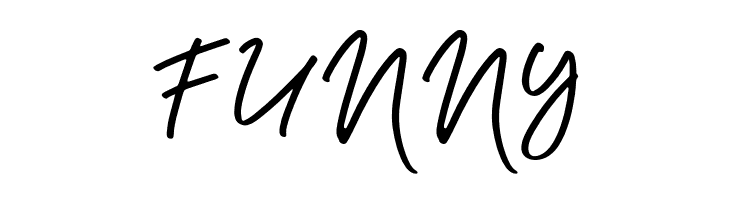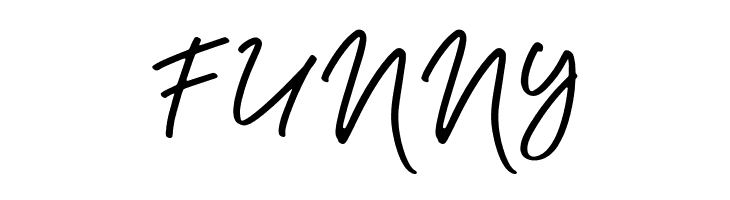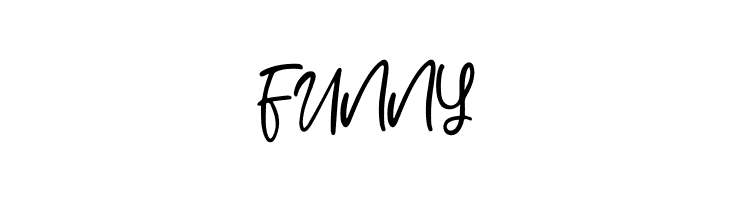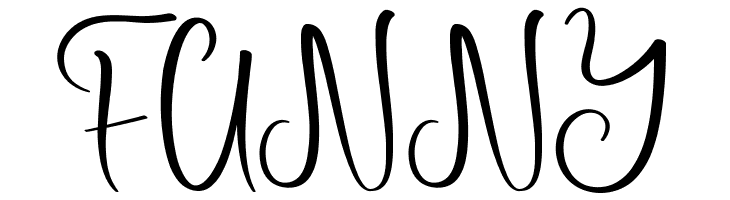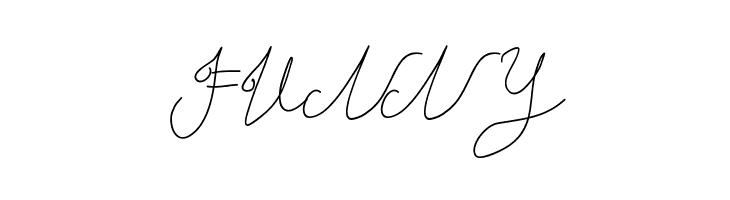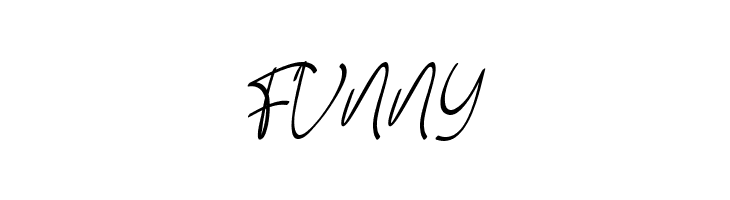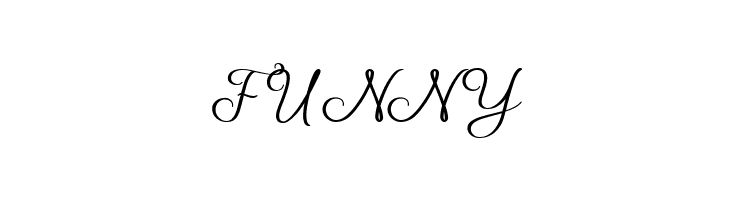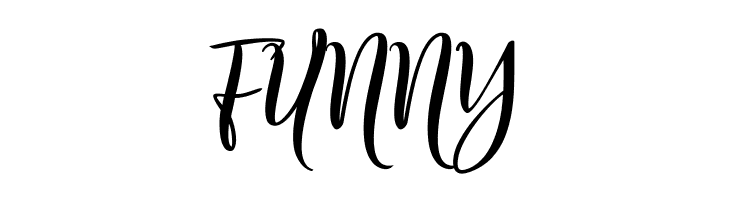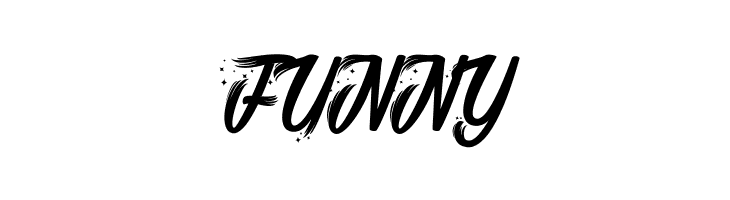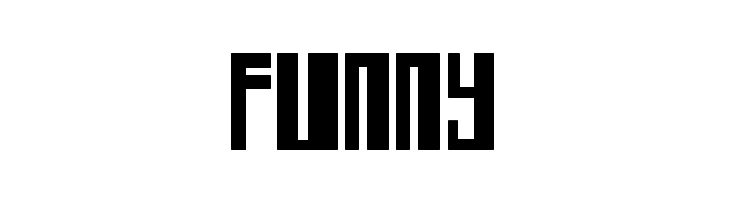
• Sheira DEMO
An elegant, flowing script font with intricate curves and high contrast.
• Shelbia Demo
A graceful, cursive font with elegant loops and swirls.
• Shelf Life Regular
• Sheline
An elegant, flowing script font with a calligraphic influence.
• Shell Gate
A playful, handwritten font with dynamic strokes and whimsical curves.
• Shell Gate
A playful, handwritten-style font with bold, flowing strokes and a casual appearance.
• Shell Museum Regular
A playful, hand-drawn font with a sketch-like, artistic style.
• Shella - Clean Version
A bold, expressive script font with flowing, cursive letterforms.
• Shella Rough - Font Duo
A bold, hand-drawn font with a rough, textured style and playful character.
• ShellaheraScriptDemo
An elegant and flowing script font with bold uppercase and delicate lowercase letters.
• Shelldon
A bold, brush script font with a textured, hand-painted look.
• Shelley
An elegant, flowing script font with graceful curves and a classic charm.
• shellhead
A bold, geometric font with sharp angles and a strong, industrial presence.
• shellhead 2
A bold, geometric font with sharp angles and a blocky appearance.
• Shellia-Regular
A casual, elegant handwritten font with smooth, flowing lines.
• Shellia-Regular